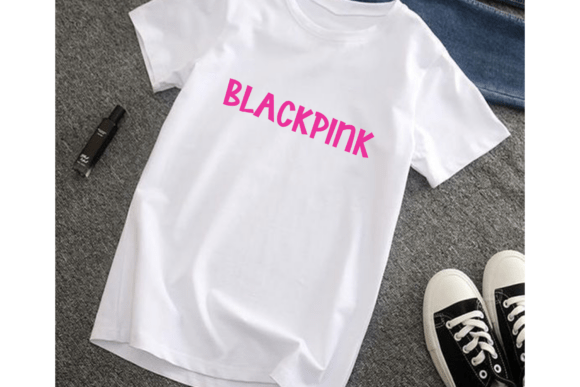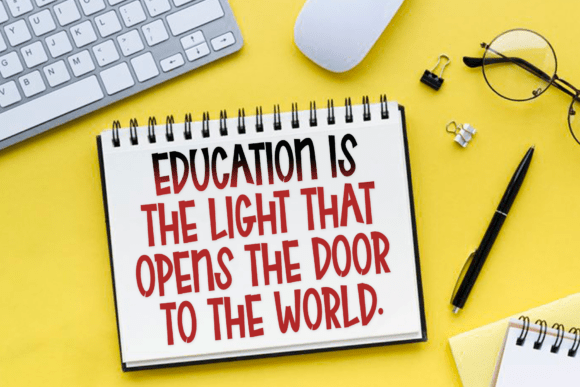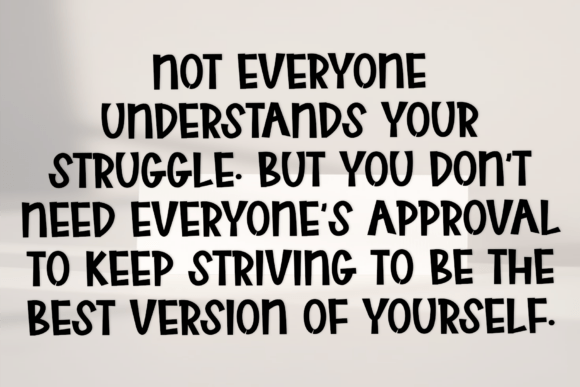
Bring the Classroom to Life with the Chalkboard Font
Do you remember the thrill of scribbling notes on a chalkboard during a lively lecture or the excitement of creating colorful signs for school events? The tactile experience of chalk on a dark surface is a sensory memory that many of us cherish. This nostalgic feeling can now be replicated in your designs with the Chalkboard Font, a charming display font that captures the essence of handwritten chalk writing.
With its bold, uneven block letters and intentionally imprecise edges, the Chalkboard Font is perfect for designers who want to add a touch of authenticity and whimsy to their projects. Whether you’re creating educational materials, event posters, or DIY craft banners, this unique typeface brings a tactile, natural texture to the digital world, making it an invaluable asset for any designer looking to convey a handmade, raw, and engaging aesthetic.
Key Features of Chalkboard Font
- Unique Characteristics: The font’s unique chalkboard-inspired design gives it a rustic, vintage feel, making it perfect for creating a nostalgic or retro aesthetic.
Designer Review: Chalkboard Font
Chalkboard Font is a unique and playful typeface that can add a touch of whimsy to any design project. ✨ One of its strongest features is its versatility – it works well in a variety of contexts, from casual branding and signage to more formal educational materials.
Another advantage of Chalkboard Font is its readability. ✨ The irregular texture and subtle imperfections give it a friendly, approachable feel that’s easy to read even in smaller sizes. It’s also highly customizable, with many different versions and variations available to suit different design needs.
While Chalkboard Font is a great choice for many projects, there are some potential drawbacks to consider. ⚠️ For one thing, it can be a bit overwhelming in large quantities or as a primary font. The texture and imperfections can start to feel cluttered or busy, which may not be ideal for more complex designs.
Another limitation is the potential for it to feel gimmicky or overused. ⚠️ In recent years, Chalkboard Font has become a bit of a design cliché, and using it in a project may not necessarily add any unique value or interest.
Overall, Chalkboard Font is a fun and versatile typeface that can be a great choice for the right project. However, it’s essential to use it thoughtfully and in moderation to avoid overusing a trend.
Tips for Getting the Most Out of Chalkboard Font
Use Chalkboard Font for creative and playful designs, such as posters, flyers, and social media graphics. To get the most out of it, experiment with different font sizes, colors, and styles to create a unique look.
Chalkboard Font is commonly used for: educational materials, party invitations, and restaurant menus. It adds a touch of whimsy and nostalgia to any design.